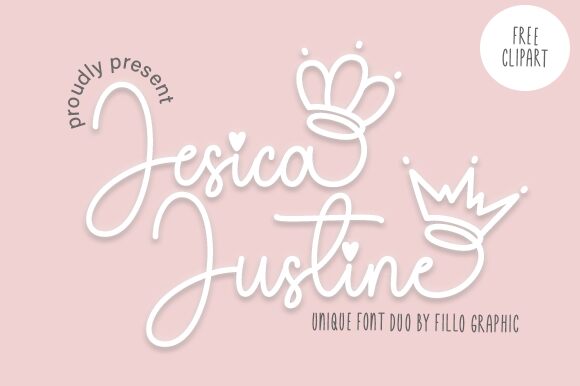
Introducing Jesica Justine, the stylish and light handwritten font created by Nopianti. Whether you're creating a website, logo, or social media post, Jesica Justine is a great choice to make your design stand out. With its graceful curves and airy feel, this font is perfect for creating invitations, posters, book covers and more. Get creative and add a touch of elegance to any project with Jesica Justine today!
Jesica Justine